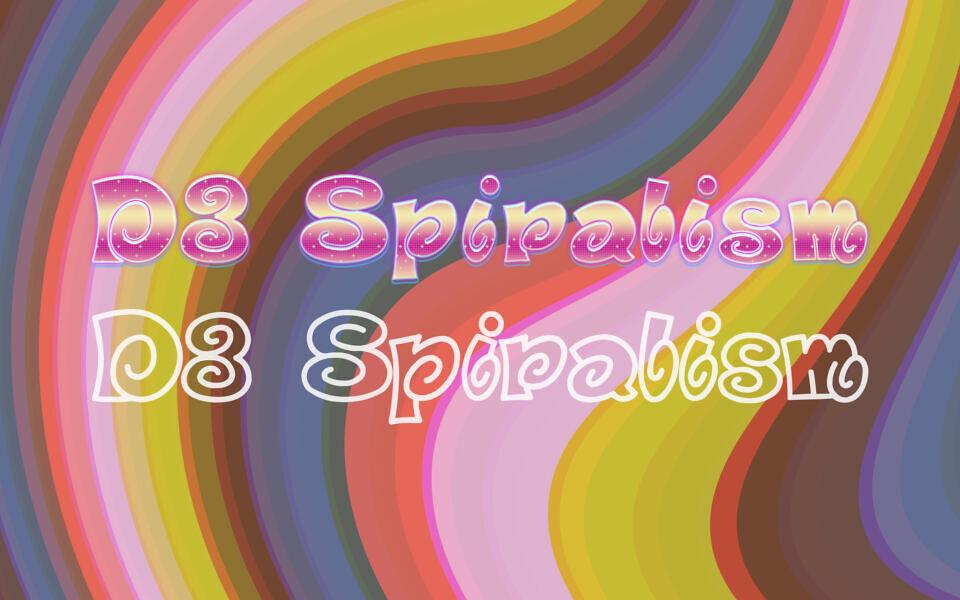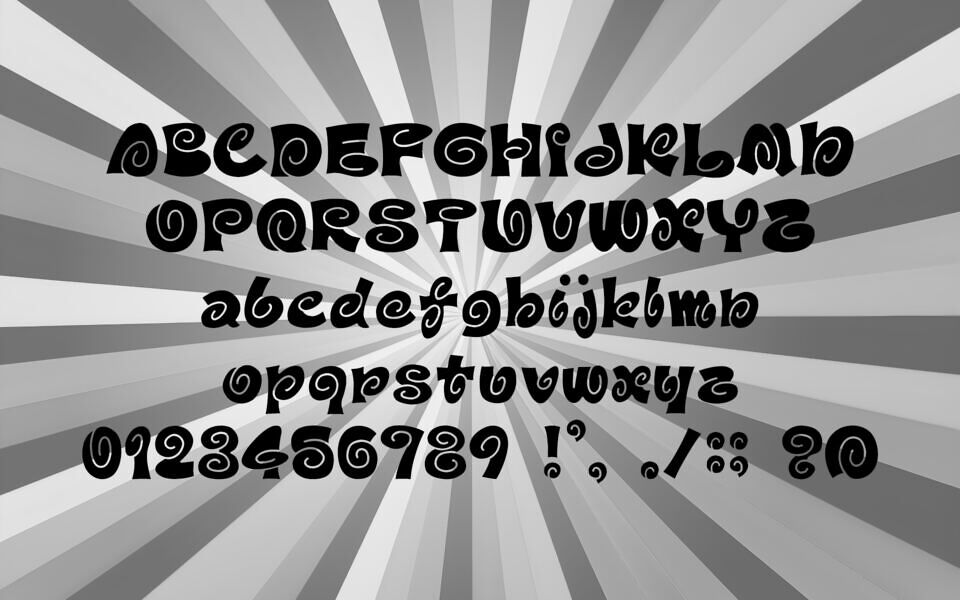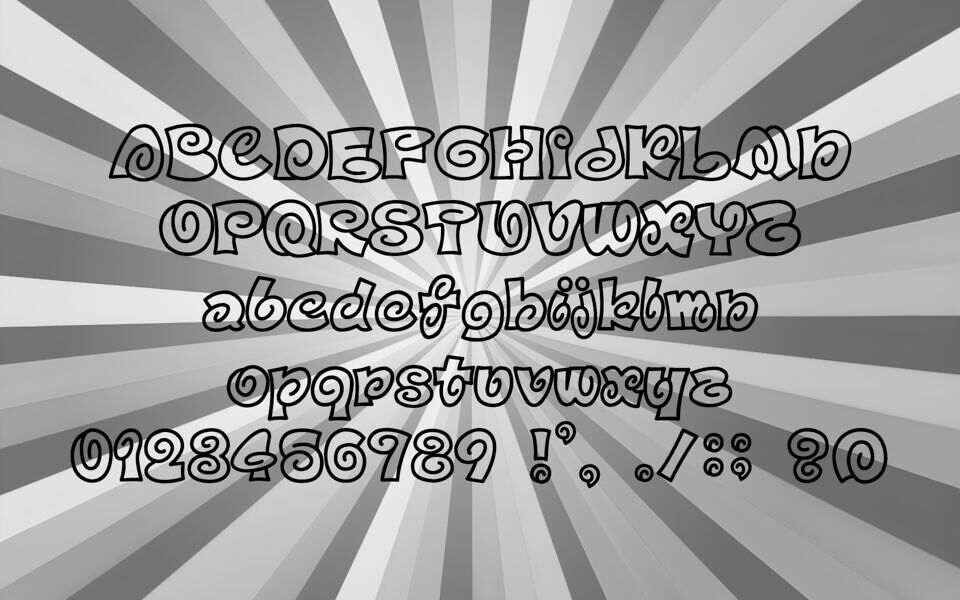
D3 Spiralism is a bold, decorative typeface inspired by 1960s groovy design, featuring playful spiral shapes and swirling letterforms. Its dynamic, eye-catching style adds a sense of motion and creativity, making it perfect for posters, logos, invitations, and artistic branding.
With both regular and outline versions, it offers versatility for standout designs that need a fun, retro-inspired visual impact.